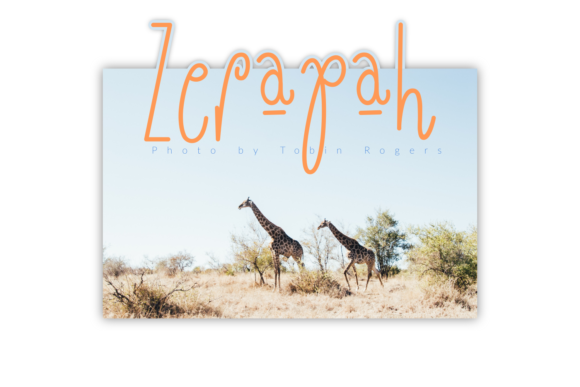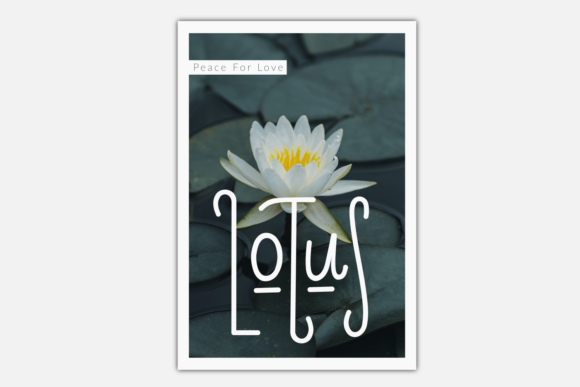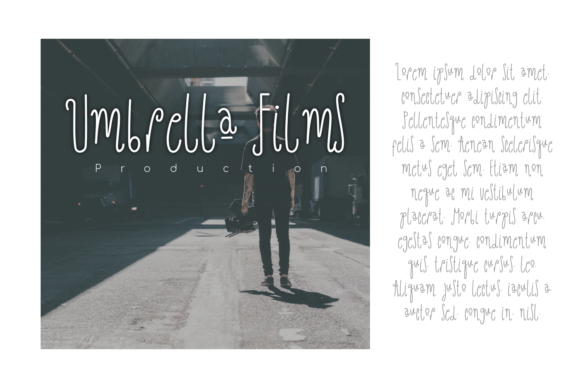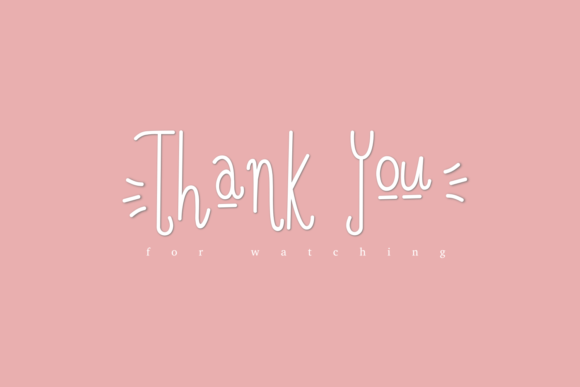
Introduction to Merosani Font
Merosani is a delicate, thin and beautiful handwritten font.
Merosani Font offers exceptional quality and versatility, making it a valuable addition to your design toolkit. Whether you’re creating for personal projects or commercial use, Merosani Font delivers professional results.